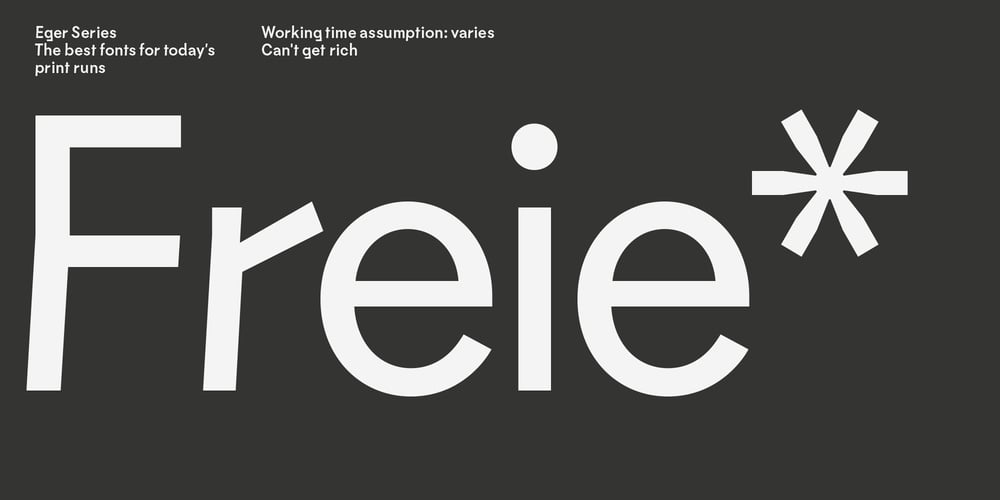
Eger Grotesk
Eger Grotesk font
Eger Grotesk Font Family was designed by Roman Cernohous and published by Roman Cernohous Typotime. Eger Grotesk contains 4 styles and family package options. Is it possible to transfer the atmosphere of the city to the character of the grotesque alphabet? Eger Grotesk was created as a concept for a study of the visual style of a quirky West Bohemian town and is inspired by the typical shapes of local houses. The principle of counter-inclined strokes in a rational rhythm and robust geometric proportions creates a characteristically playful lively text. Eger Grotesk contains 4 styles, a stylistic set with an alternate letter “a”, in addition to the basic ones, also tabular and oldstyle figures and arrow sets in various shapes.